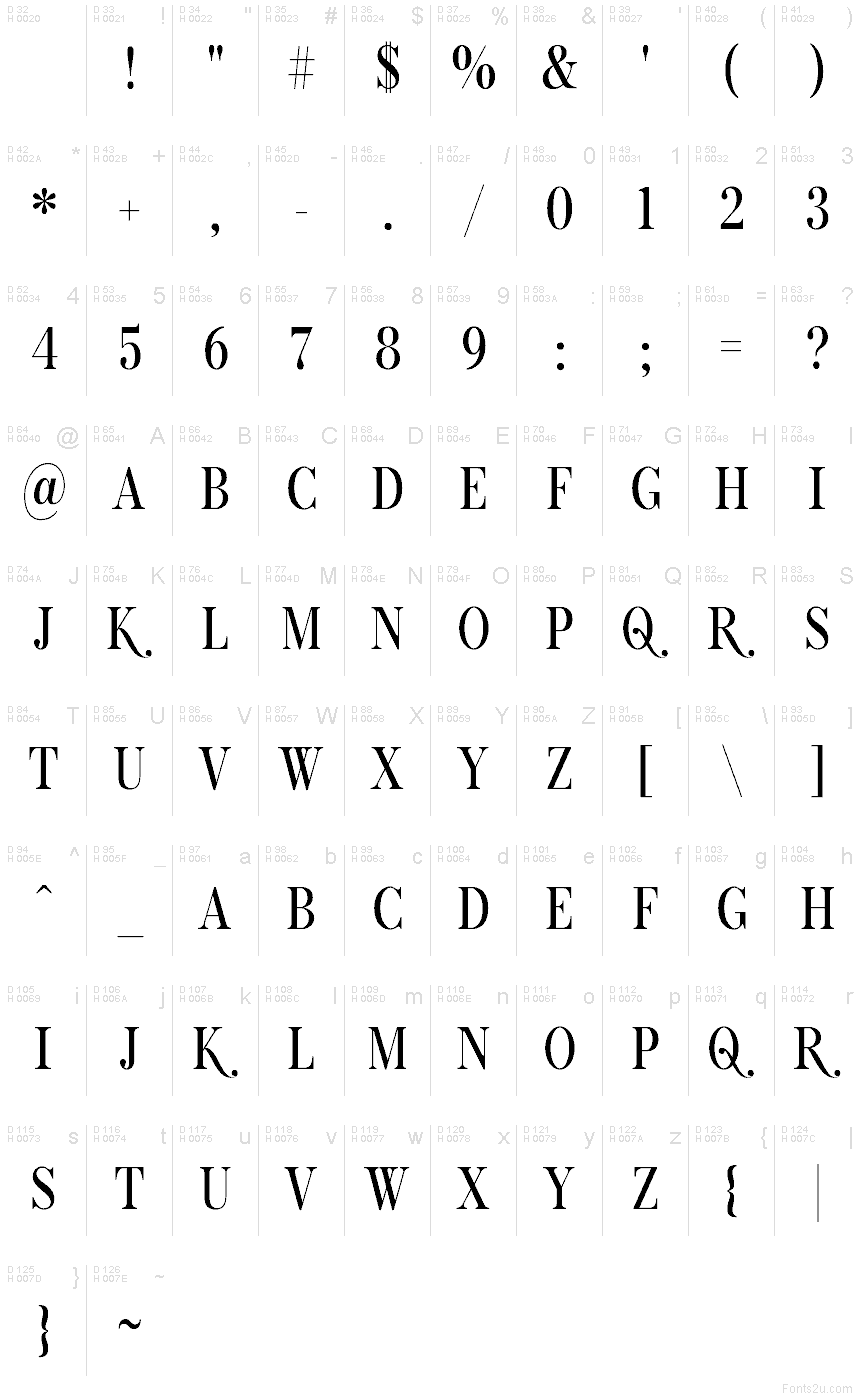
Morgan
Morgan font by Graphicxell is an elegant classic free serif font for those with taste and attention to detail. Each round letter has impeccable refinement, drawn precisely to follow the same style principles and serve legibility and beauty. The typeface is slightly curved and made with 2 weights (regular and bold) users are welcome to utilize.
As for partial or full projects, Morgan can be your logo font, web font, print in branding materials, business card text, book title text. Not limited to these cases; signs on doors such as “toilets” or other similar spots where style matters can enjoy this typeface.